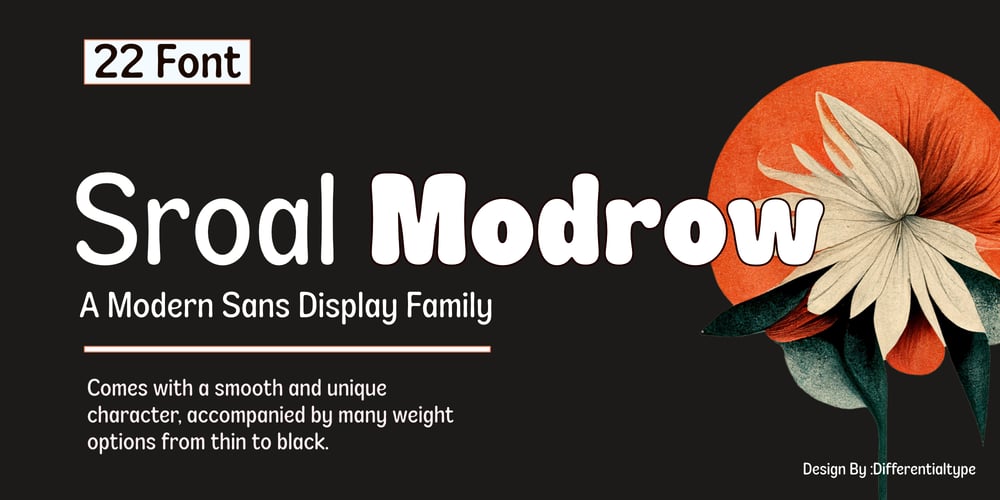
Sroal Modrow Font Family was designed by Sidik Sidik and published by Differentialtype. Sroal Modrow contains 22 styles and family package options. Introducing Sroal Modrow, a sans display font family that boasts a smooth design in every curve and corner. The memorable uniqueness of Sroal Modrow is sure to enhance all your creative endeavors, be it title crafting, headline writing, logo enhancement, product branding, or general document typing.Sroal Modrow doesn’t just come in one style, but provides you with a uniquely versatile suite of 22 styles from thin to black, with added italics and including black outline and shadow for display use. Incorporate Sroal Modrow in all your designs and experience the commanding presence and incredible visual appeal it brings, making your work stand out like never before.